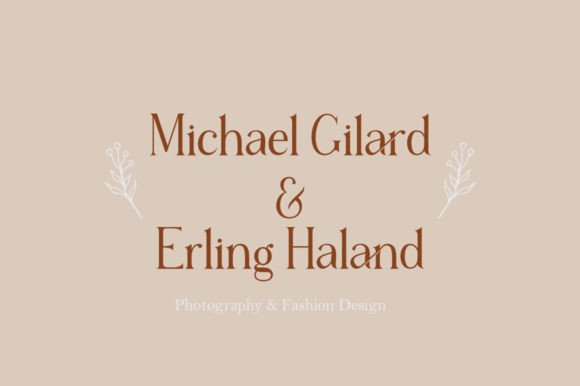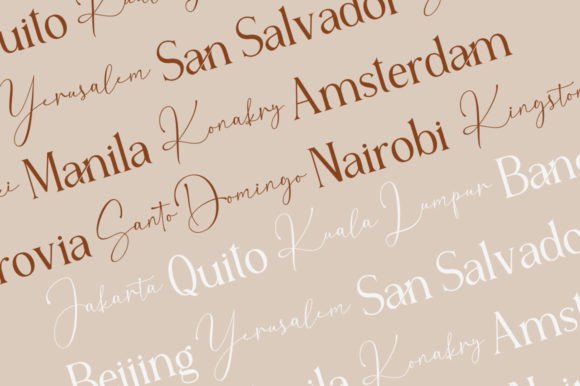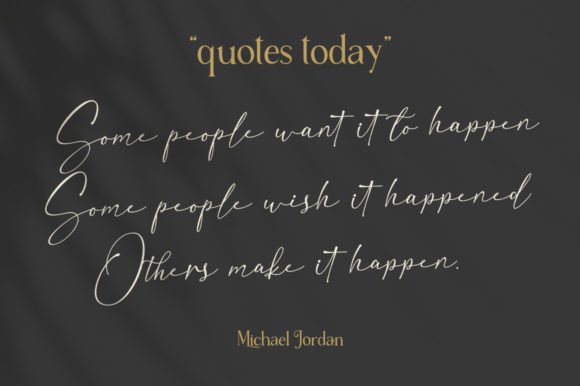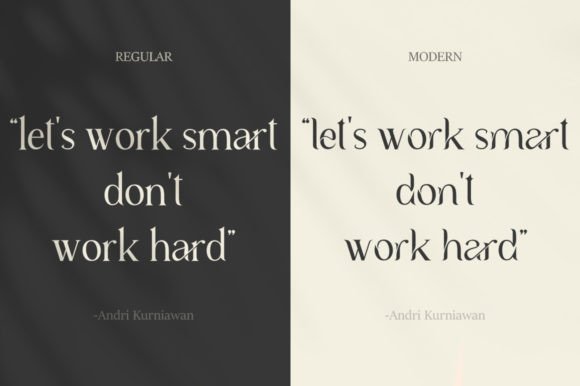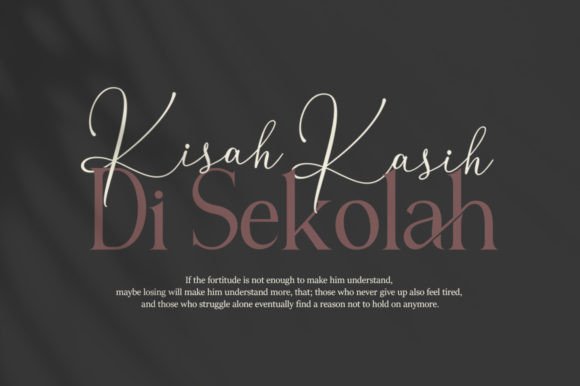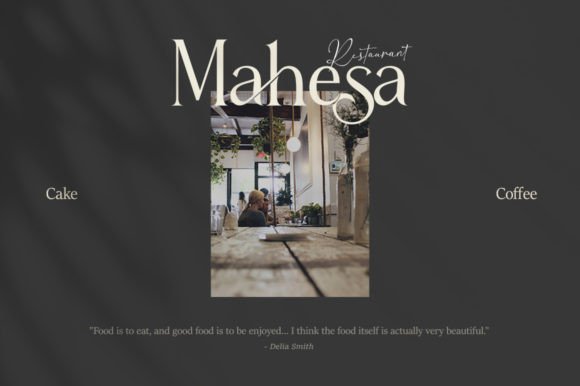
Introduction to Rose Madina Font Font
Fonts play a crucial role in design, and the Rose Madina Font font is a typeface that brings both character and versatility to any project. Whether you’re working on a branding project, a website, or a print design, the Rose Madina Font font offers a unique style that can elevate your work.
Rose Madina is a display and signature font made into one that will give your designs an authentic brush-handcrafted feel.
Rose Madina is perfect for signatures, stationery, logos, typography quotes, magazine or book covers, website headers, flyers, clothing, branding, and more .
Key Features of Rose Madina Font Font
Why Choose Rose Madina Font Font?
The Rose Madina Font font is more than just a typeface – it’s a design tool that helps you communicate your message with style and clarity. Its unique character set and versatile design make it suitable for a wide range of applications, from elegant invitations to bold headlines.
With its carefully crafted letterforms and balanced proportions, the Rose Madina Font font ensures readability and visual appeal across all mediums.
What makes Rose Madina Font font special?
The Rose Madina Font font stands out with its unique design, exceptional readability, and versatility across various design applications.